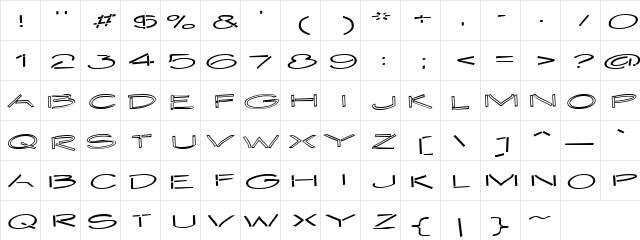
Embangwa Regular
Design Context for Embangwa Typeface
Embangwa is a composed and adaptable typeface that performs quietly and consistently across a wide range of design contexts.